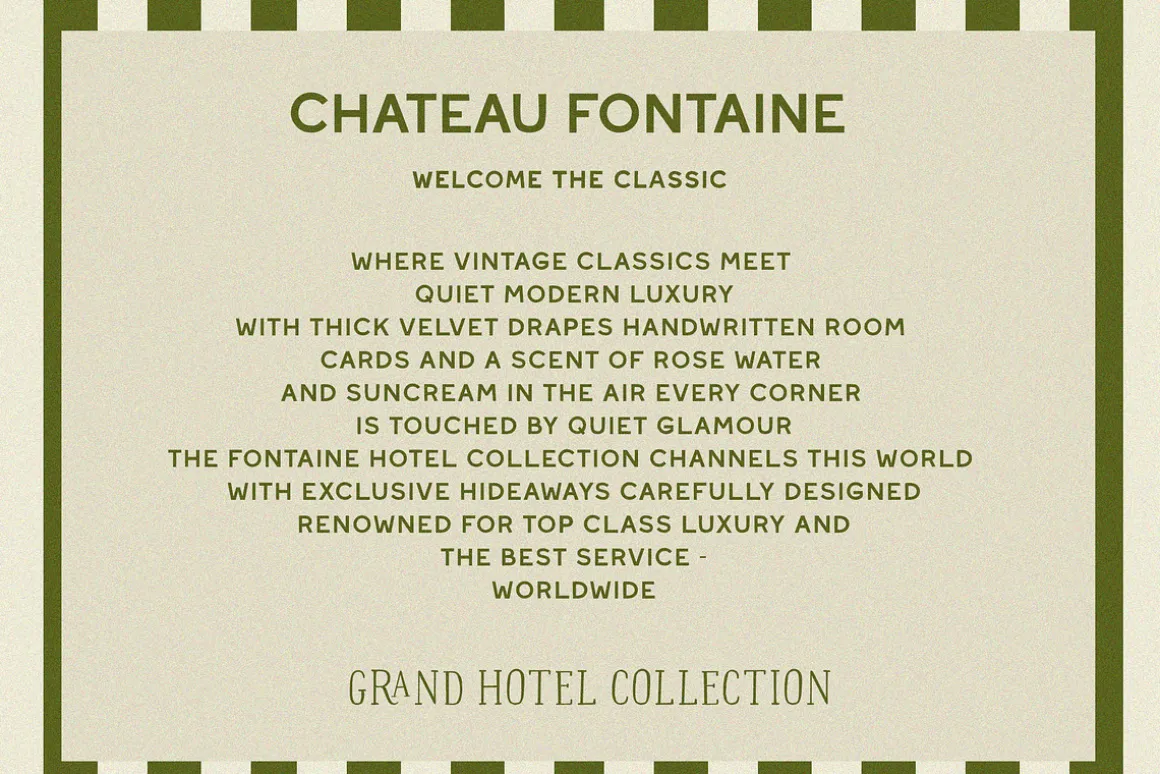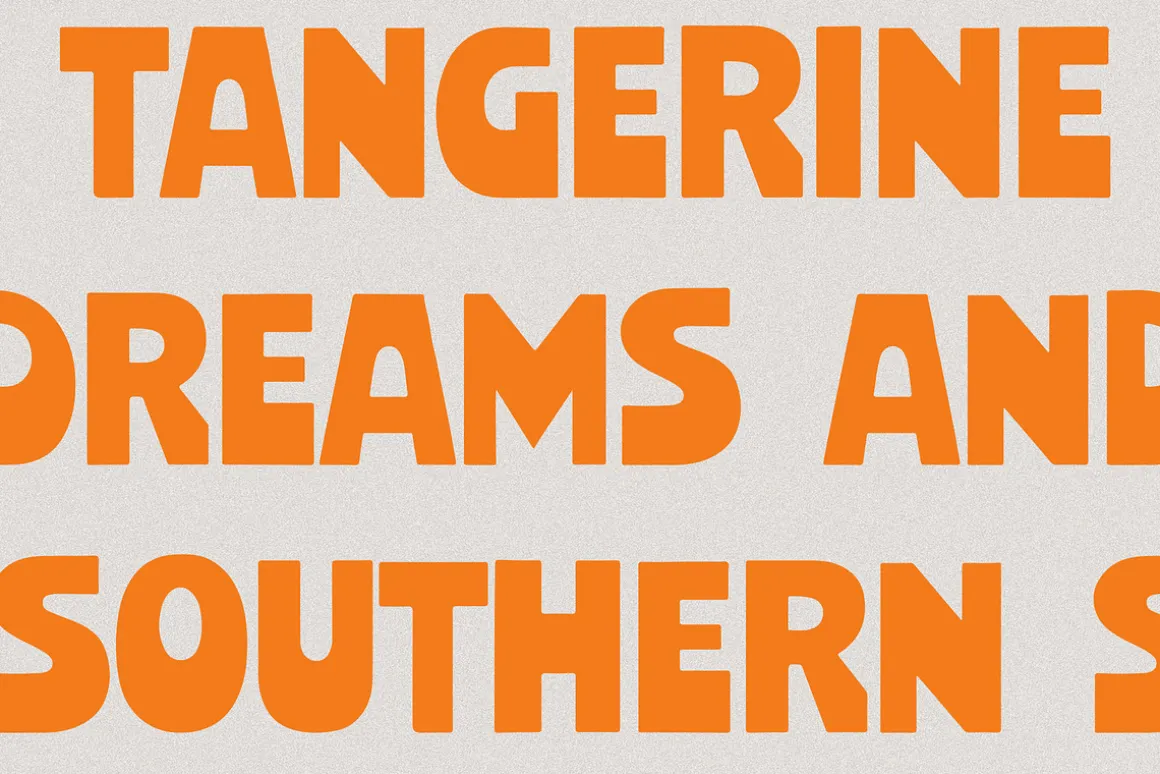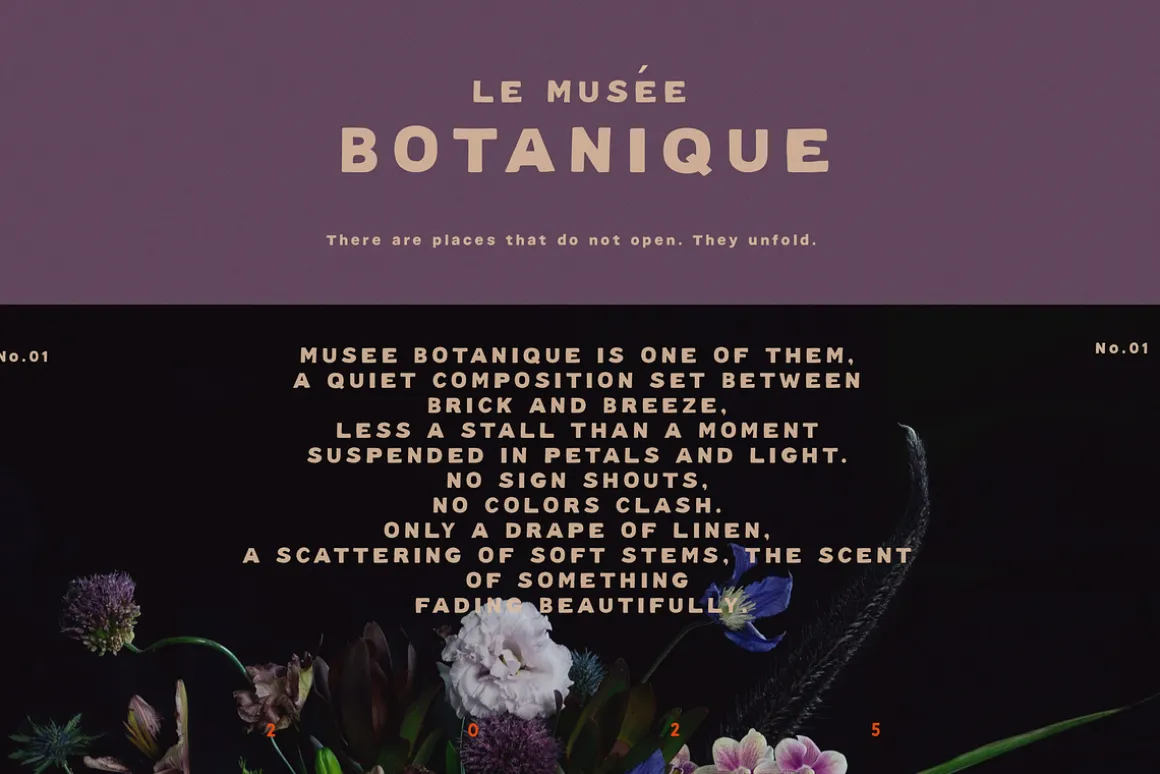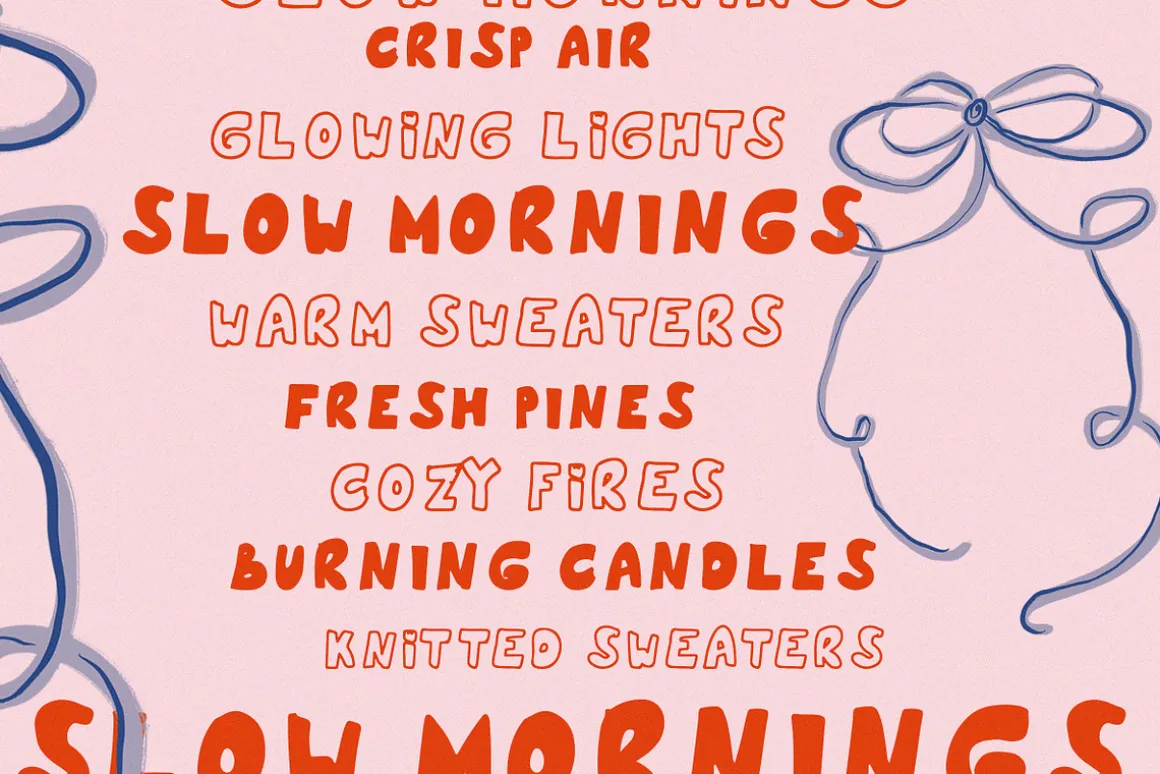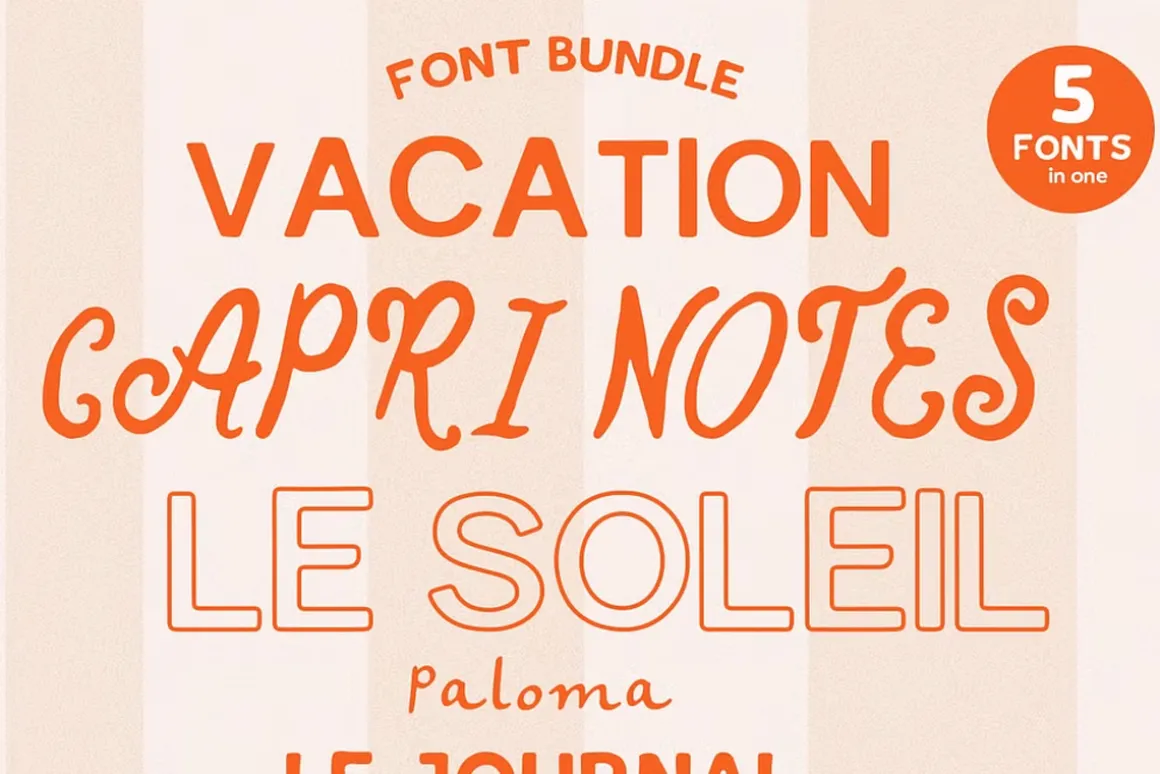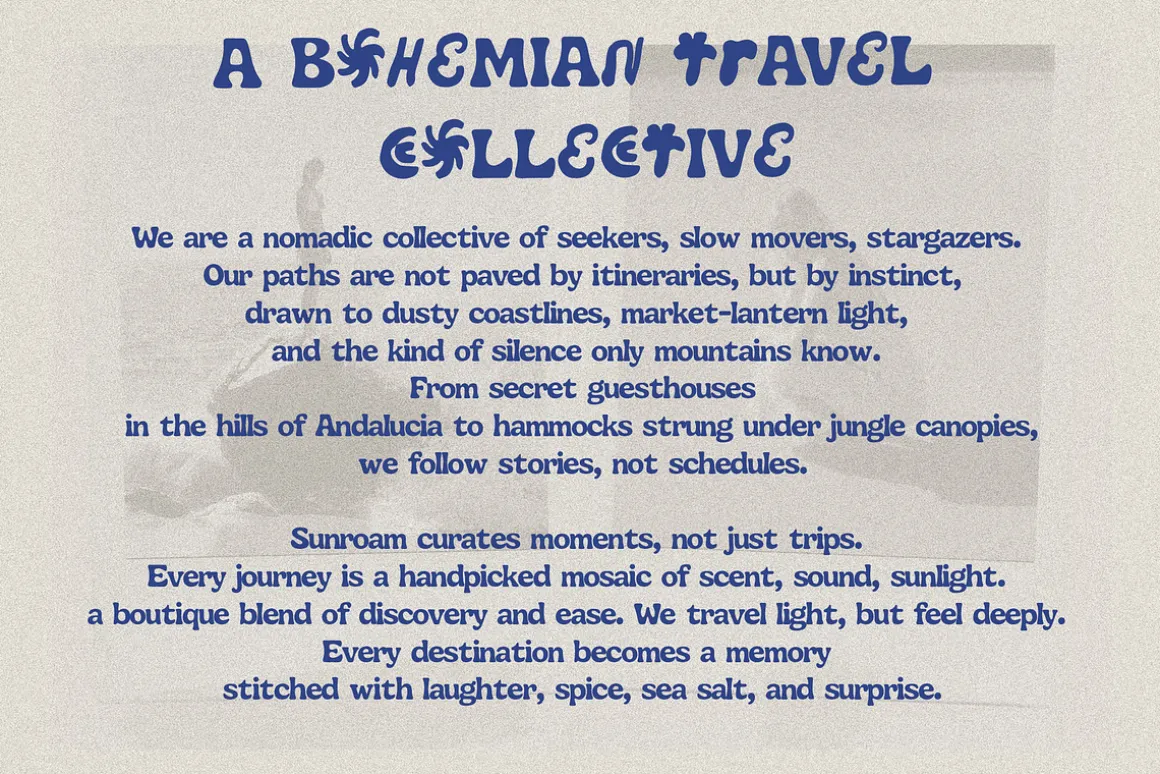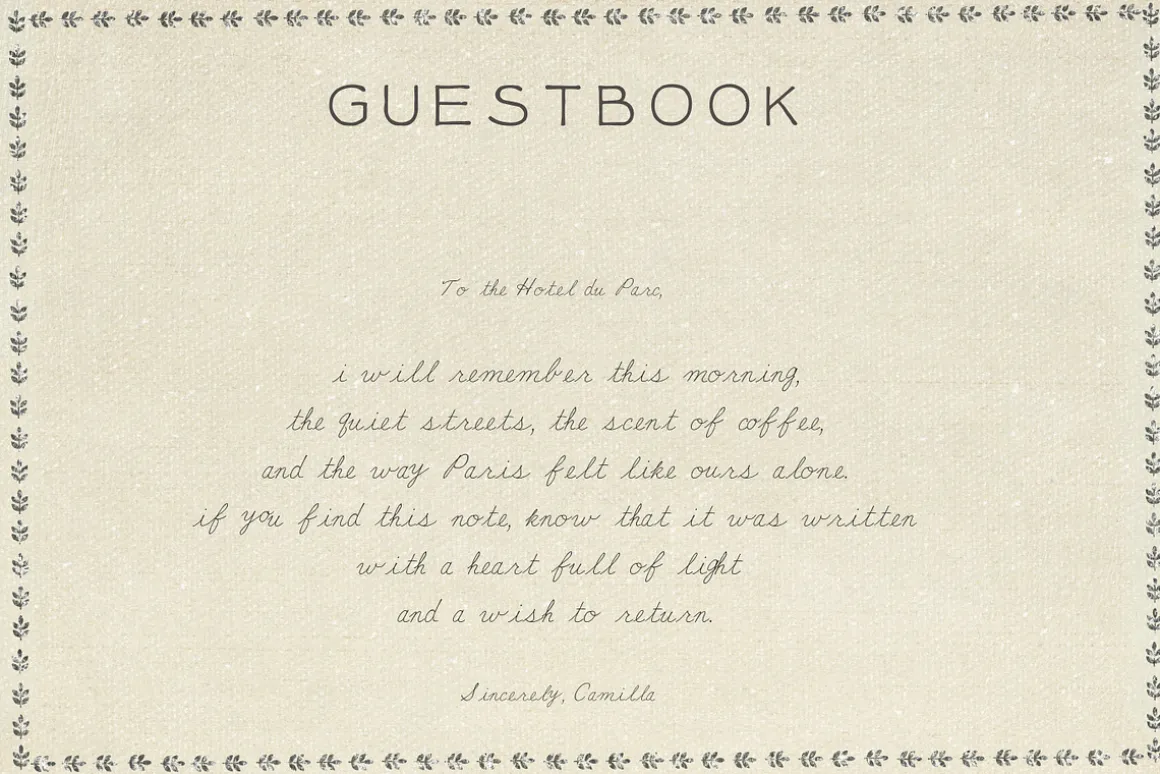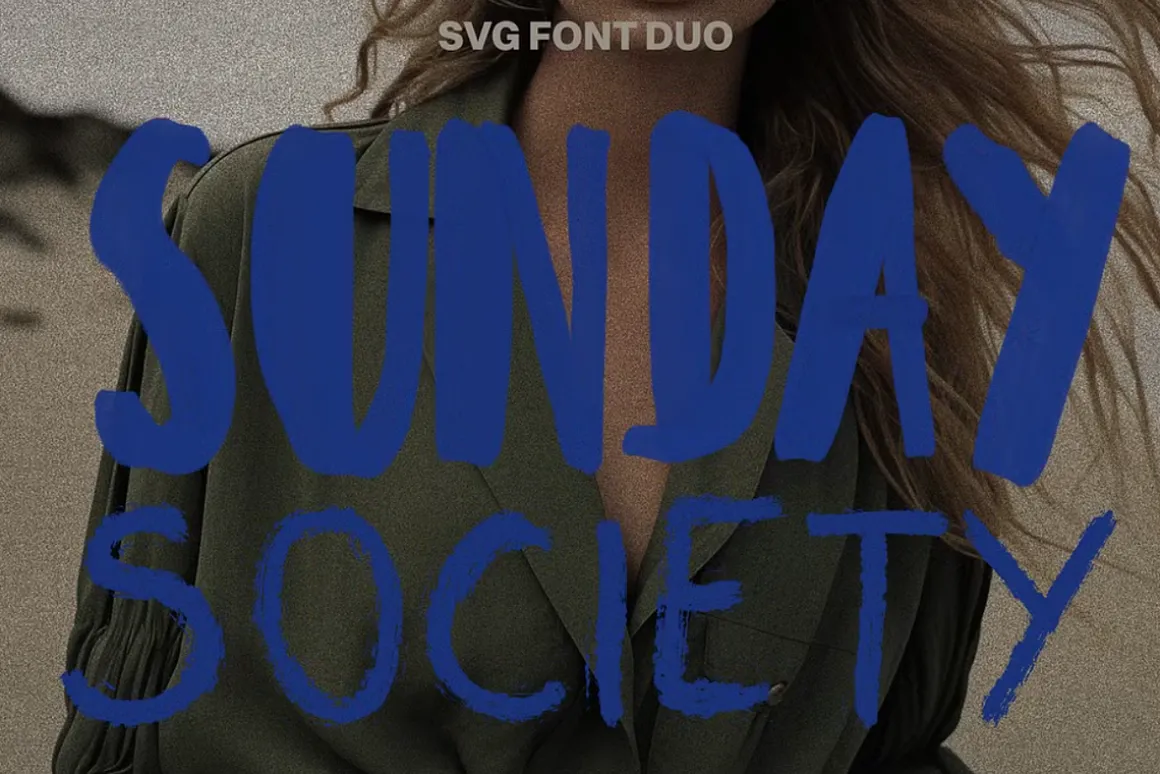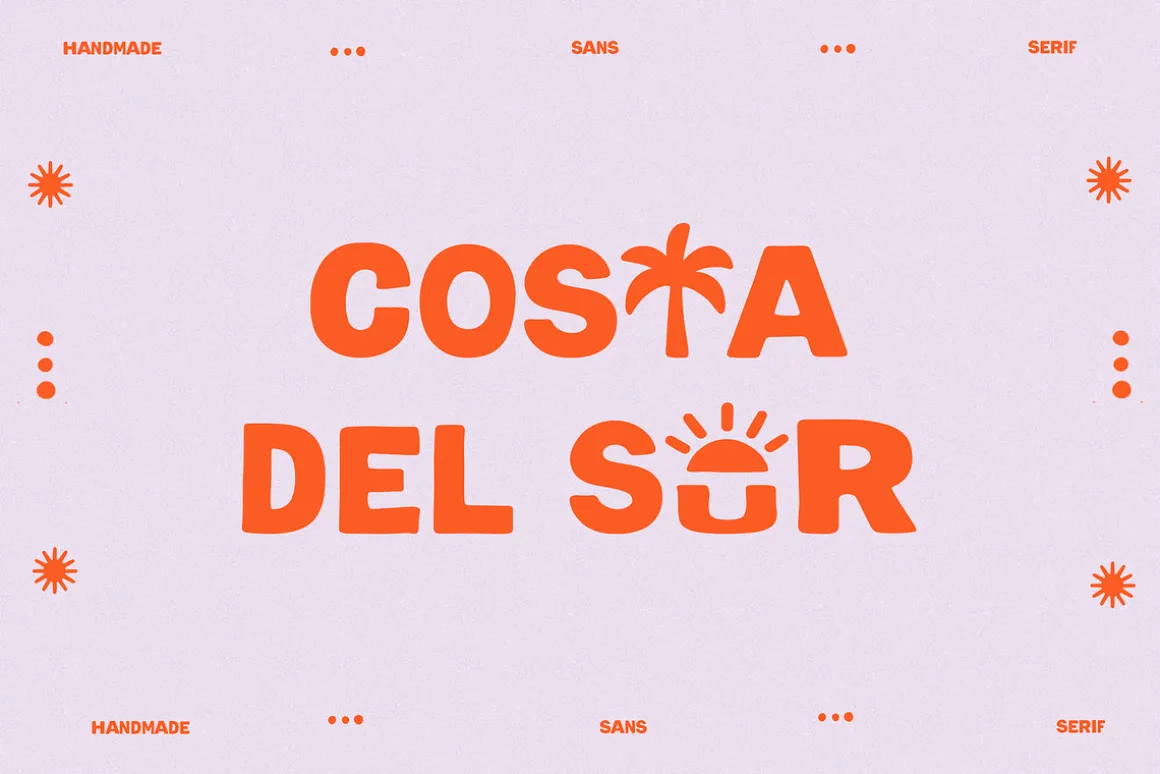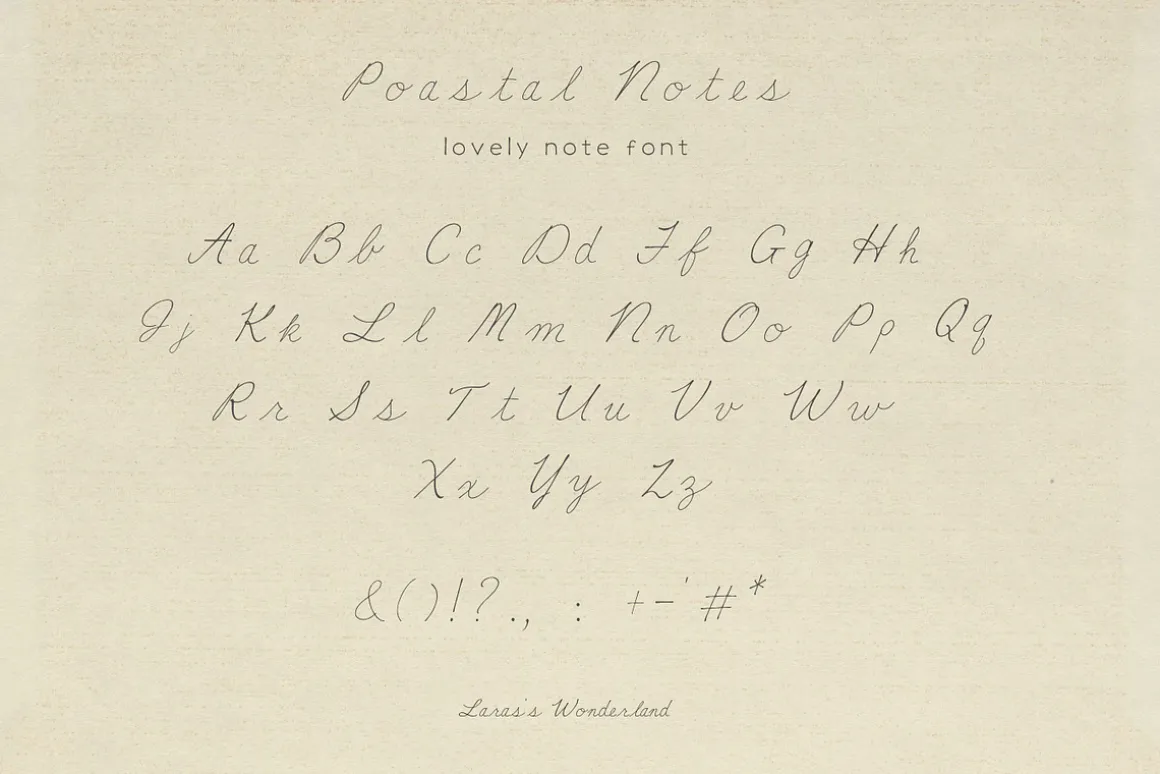
This bundle includes every single font I’ve ever created, all hand drawn, hand lettered and carefully refined. You’ll find handmade sans serif fonts, playful marker fonts, elegant serifs, whimsical scripts, modern display fonts, and many more. Most fonts include ligatures and alternates to give your designs a natural and authentic feel. Perfect font pairings of bold vintage scripts, elegant hand lettering, whimsical calligraphy, vintage handmade fonts and so much more to discover.